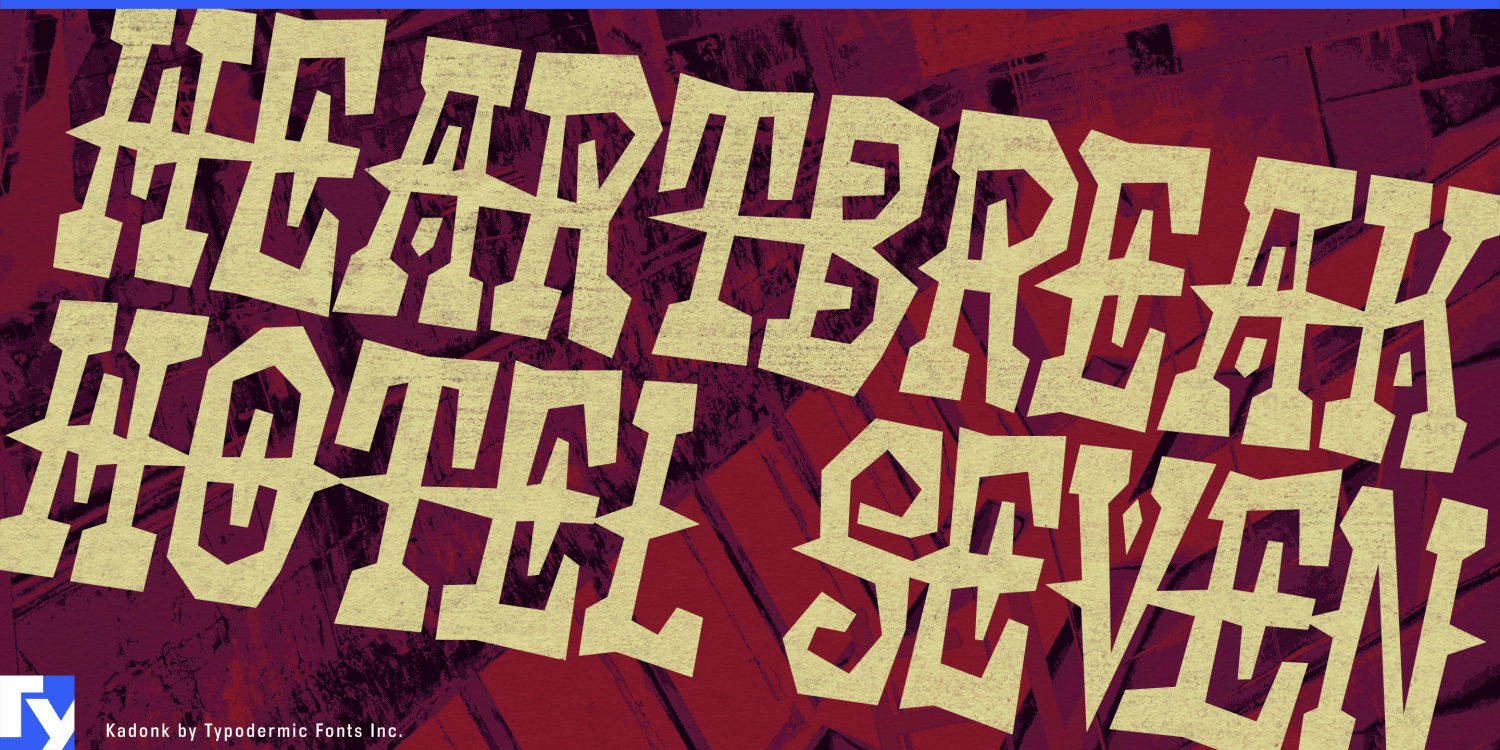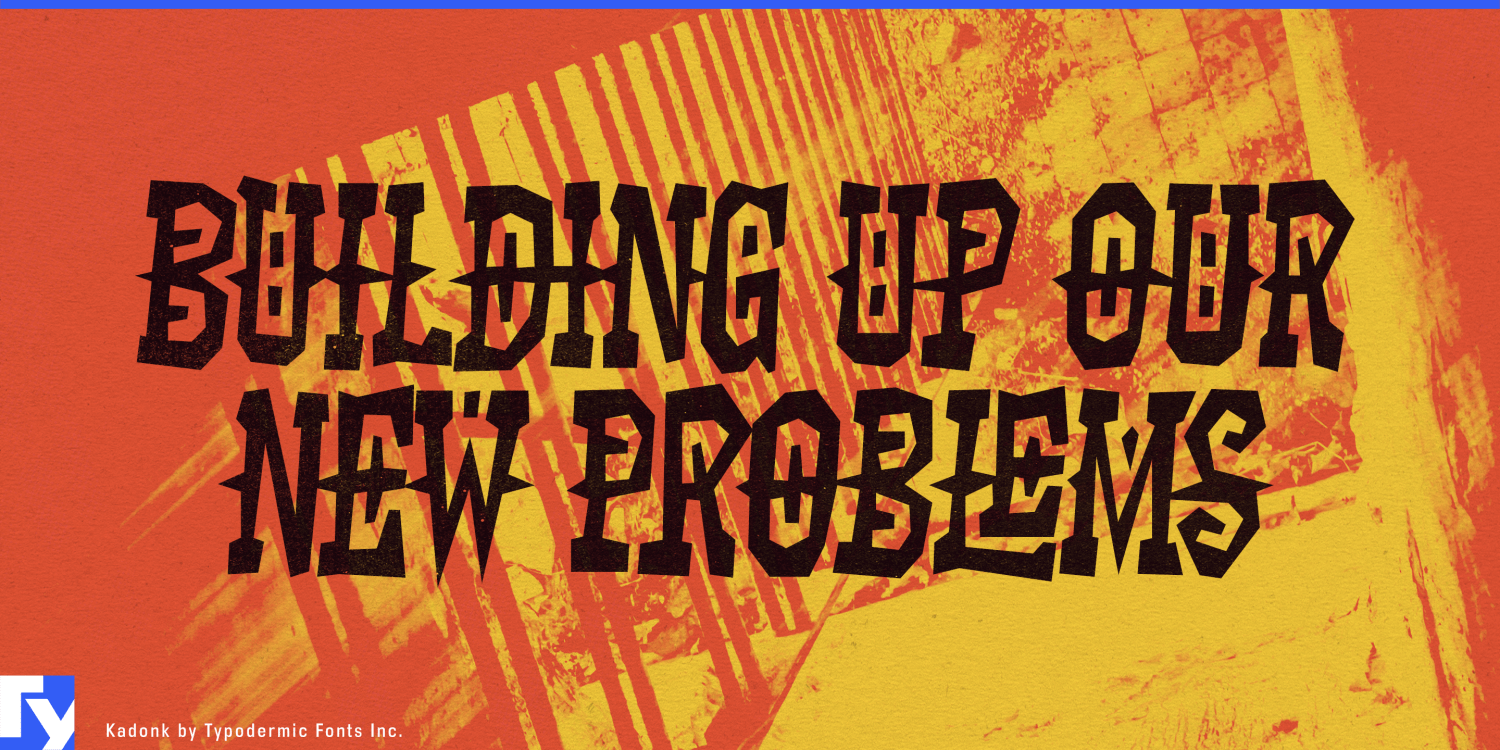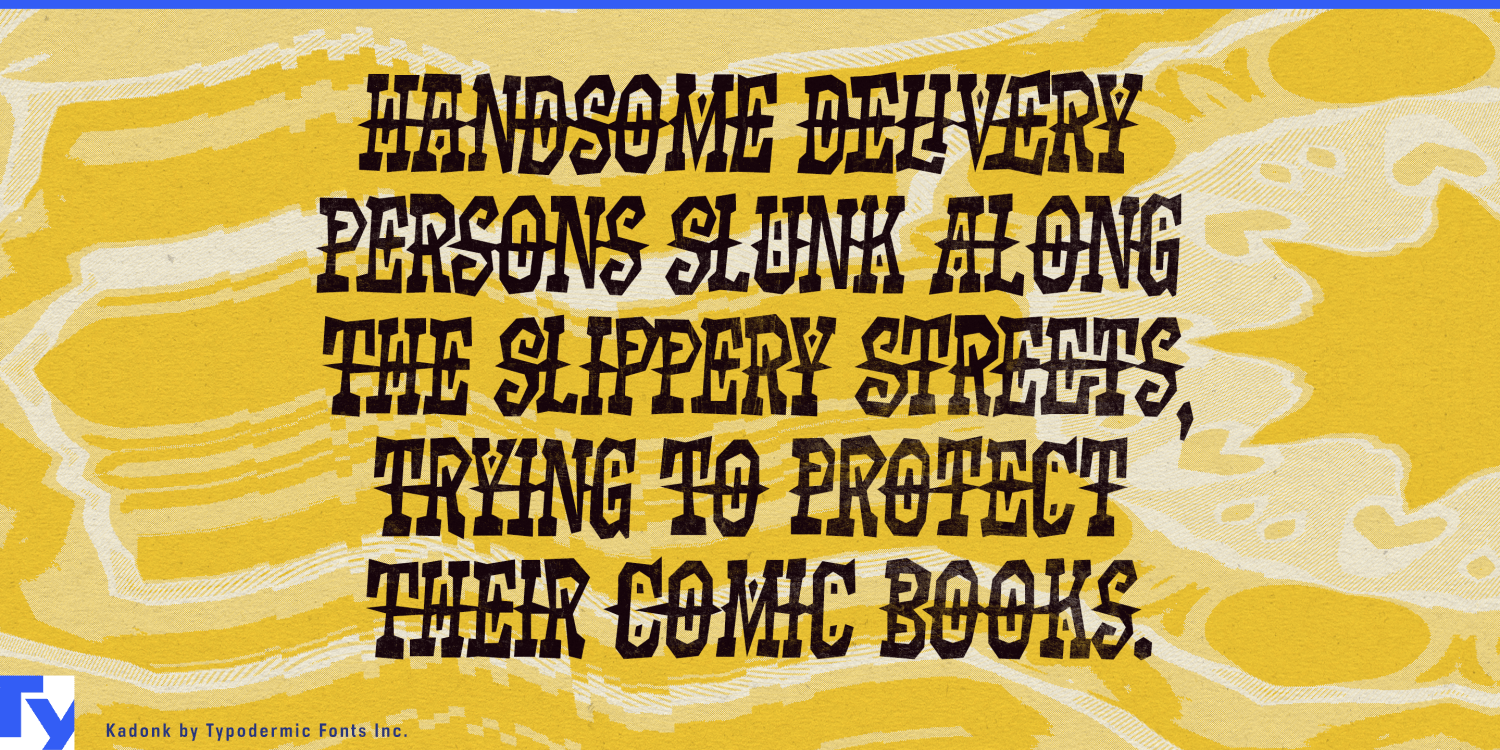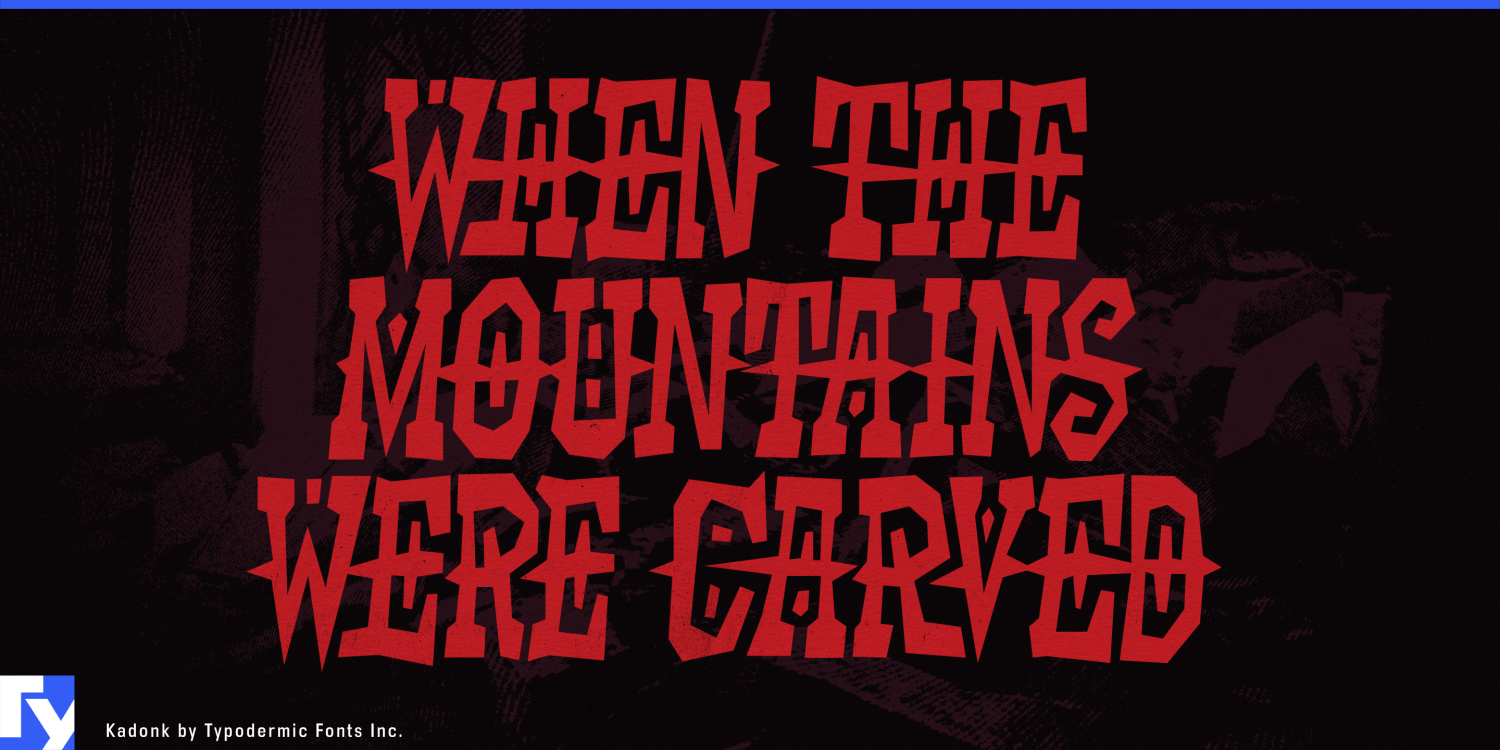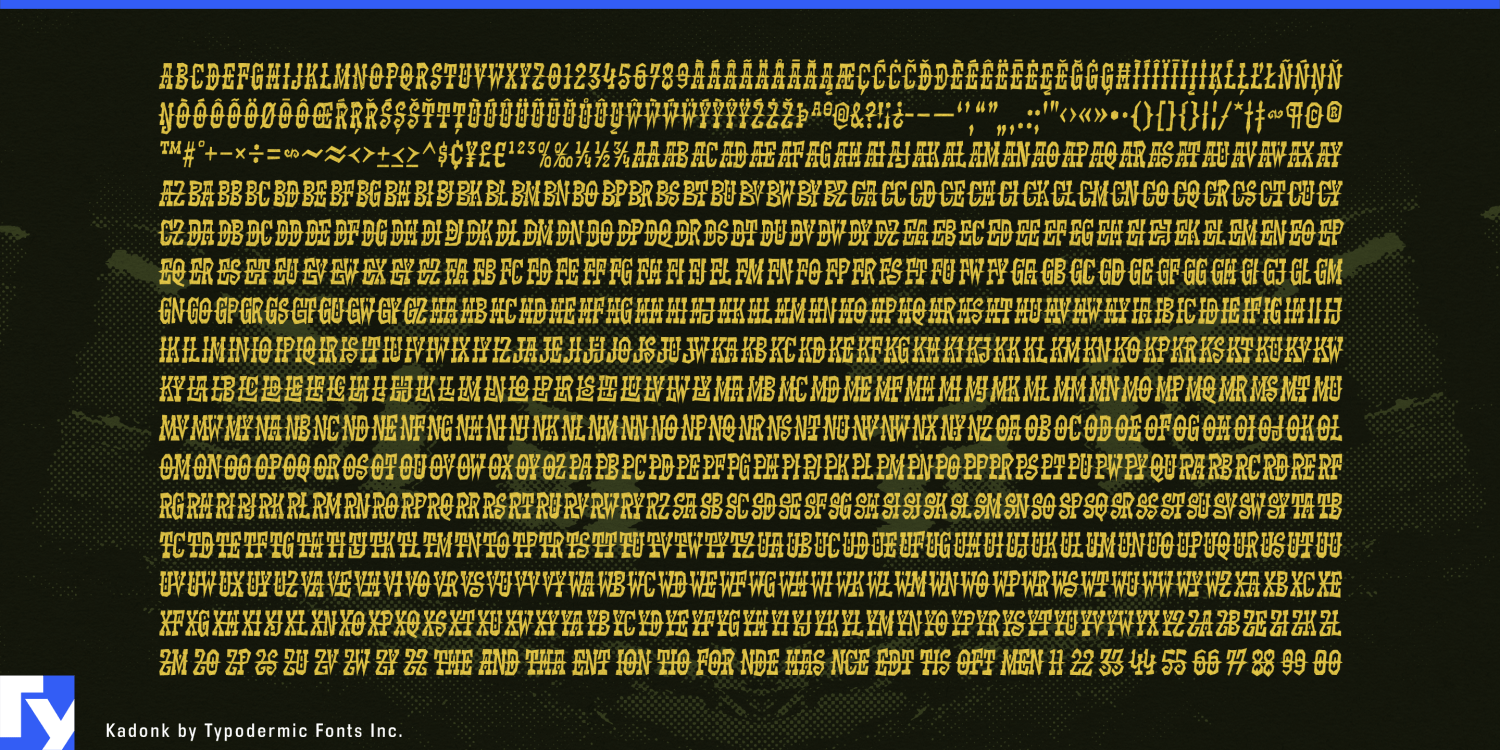
Kadonk erupts onto the typographic battlefield with primal ferocity, a font that eschews subtlety in favor of raw, unbridled aggression. This is not a typeface for the faint of heart—it’s a visual war cry, designed to pummel viewer sensibilities…